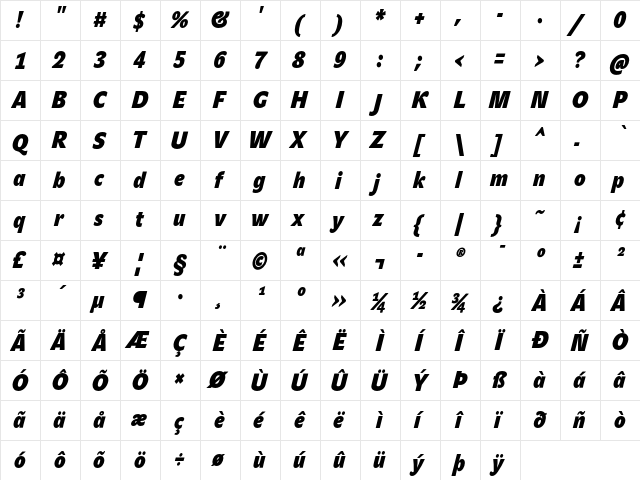
JohnSansCond Heavy Pro Bold Italic Font Preview
Design Context for JohnSansCond Heavy Pro Typeface
JohnSansCond Heavy Pro offers clean, dependable letterforms without strong stylistic allegiance, making it a practical choice for designers who need flexibility. The slanted form adds forward momentum and visual energy. Its bold stroke weight gives it real presence on the page. The condensed width makes it efficient for tight spaces without sacrificing legibility.
Pro Tip: Try JohnSansCond Heavy Pro for annotation and caption copy alongside an upright companion — the contrast in angle creates a dynamic but ordered typographic system.